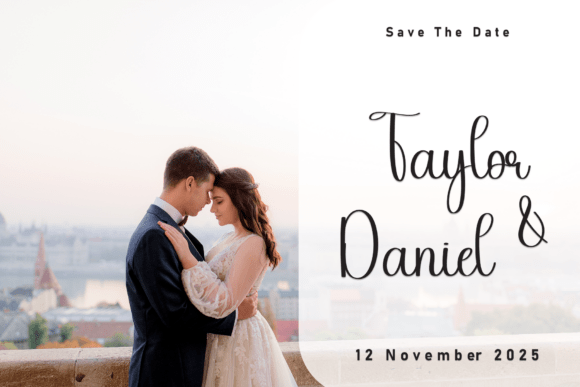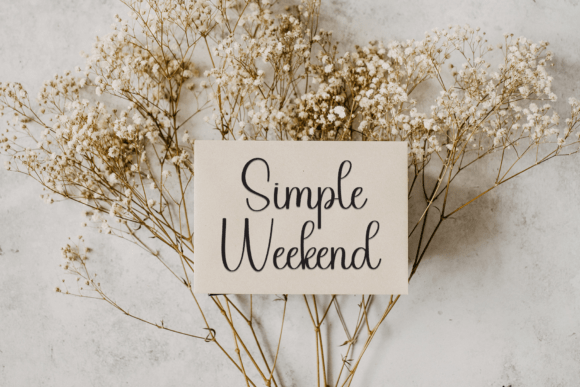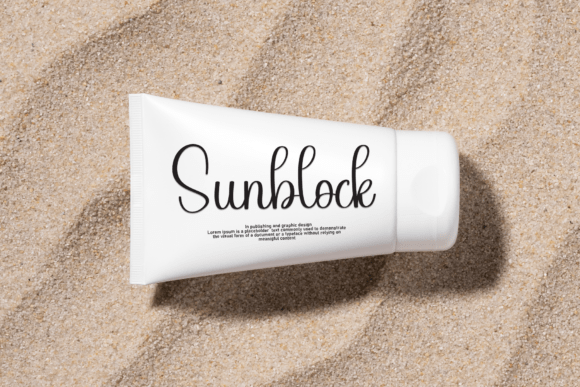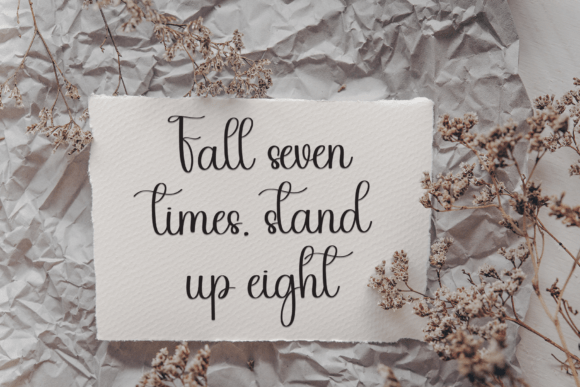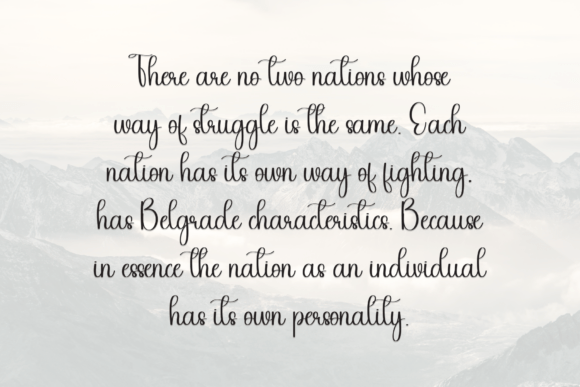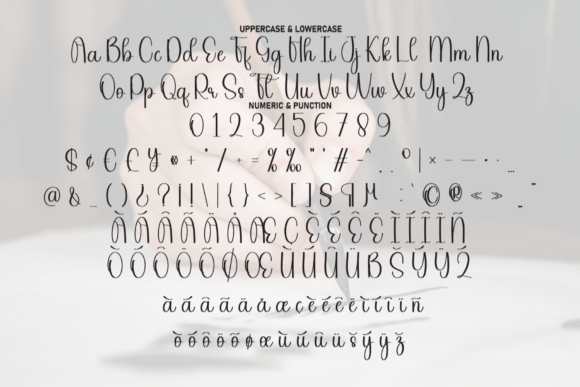
Elevate Your Designs with the Elegance of Calligraphy Fonts
Calligraphy style is a beautifully elegant handwritten font with flowing lines and refined curves. Perfect for wedding invitations, logos, stationery, and upscale branding, it brings a graceful, romantic touch to every design. In this article, we’ll explore the world of calligraphy fonts, their characteristics, and how to effectively use them in your designs.
What is a Calligraphy Font?
A calligraphy font is a type of font that mimics the elegant and flowing style of calligraphy, an art form that involves decorative handwriting with specialized tools, such as nibs or brushes. Calligraphy fonts are designed to replicate the fluid, cursive strokes and intricate letterforms that are characteristic of traditional calligraphy.
Characteristics of Calligraphy Fonts
Calligraphy fonts are known for their distinctive features, which include:
- Flowing lines and curves: Calligraphy fonts feature smooth, connected letters that flow into each other, creating a sense of movement and fluidity.
- Refined and elegant strokes: Calligraphy fonts are characterized by refined, cursive strokes that add a touch of sophistication and luxury to any design.
- Intricate letterforms: Calligraphy fonts often feature intricate letterforms with decorative flourishes, swashes, and tails that add to their elegance.
Uses of Calligraphy Fonts
Calligraphy fonts are versatile and can be used in a variety of design applications, including:
- Wedding invitations and stationery: Calligraphy fonts are a popular choice for wedding invitations, save-the-date cards, and other stationery, as they add a romantic and elegant touch.
- Logos and branding: Calligraphy fonts can be used to create sophisticated and luxurious logos, perfect for high-end brands, beauty companies, and fashion labels.
- Signage and display text: Calligraphy fonts can be used for display text, such as headings, titles, and captions, to add a touch of elegance and sophistication.
Tips for Using Calligraphy Fonts Effectively
To get the most out of calligraphy fonts, follow these tips:
- Use them sparingly: Calligraphy fonts can be overwhelming if overused. Use them sparingly to add a touch of elegance to your design.
- Choose the right font size: Calligraphy fonts can be difficult to read at small font sizes. Choose a font size that is large enough to showcase the intricate details of the font.
- Pair with simple fonts: Pair calligraphy fonts with simple, sans-serif fonts to create contrast and add visual interest to your design.
Calligraphy fonts are a beautiful and elegant way to add a touch of sophistication and luxury to your designs. With their flowing lines, refined curves, and intricate letterforms, they are perfect for wedding invitations, logos, stationery, and upscale branding. By following the tips outlined in this article, you can effectively use calligraphy fonts to elevate your designs and create a lasting impression.